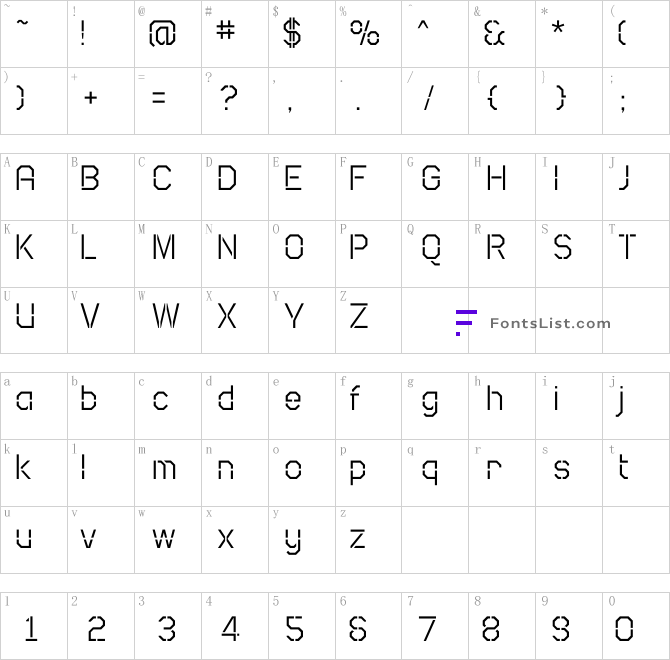
- Font Name:Camo SansLight
Camo-SansLight.ttf is a very beautiful artistic font, Camo-SansLight.ttf is widely used in the design and printing of various books and pictures,Camo-SansLight.ttf has a strong visual impact,Camo-SansLight.ttf is a commonly used font in newspapers, magazines and books, and is used in posters, e-commerce Poster design, store design, logo design, font design and other fields.Camo-SansLight.